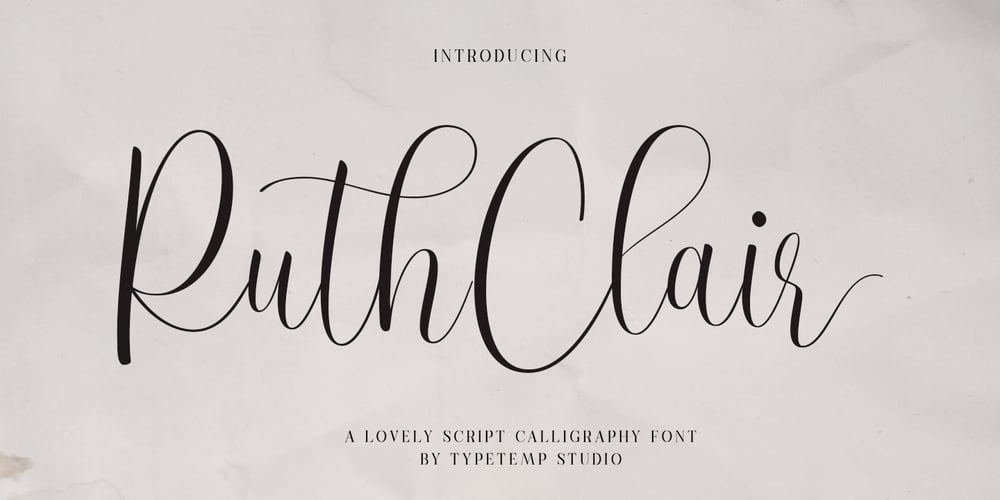
Ruth Clair
Ruth Clair font
Ruth Clair Font Family was designed by Egi Ahmad Mufid and published by Typetemp Studio. Ruth Clair contains 1 styles and family package options. RuthClair Lovely Script Calligraphy whisk you away for a romantic rendezvous with your love of handwritten scripts. A little bit chic, a little bit classy, RuthClair is a must-have for any script font collection. this Fotn comes with alternatives and ligatures that create stunning logos, quotes, posts, blog posts. branding projects, magazine imagery, wedding invitations, and much moreFeatures : Multilanguange PUA Encoded Web Font Included Contact me with an inbox message If you have any question. Thank you! Happy Creating.